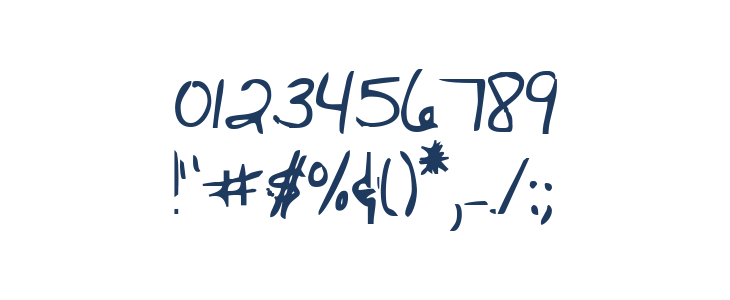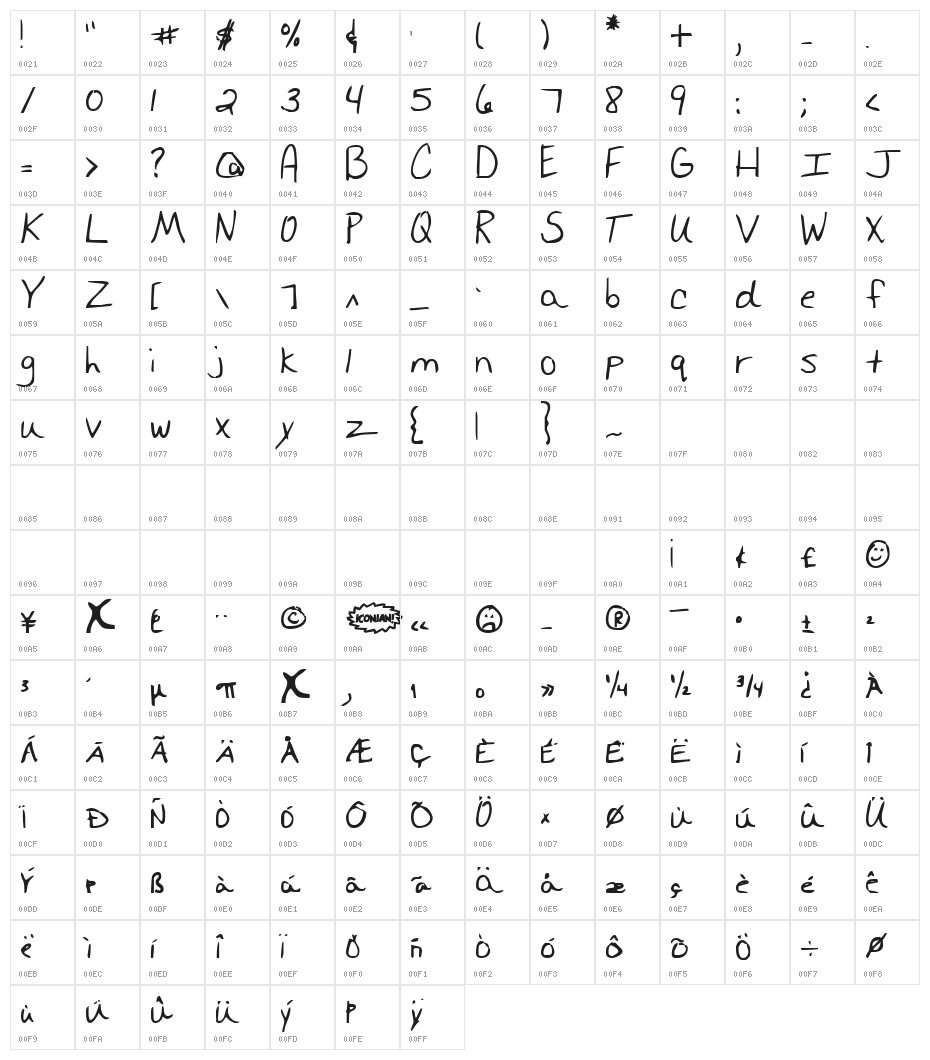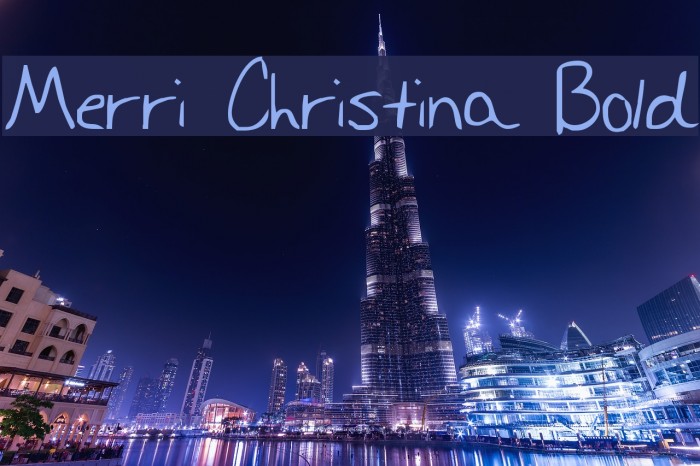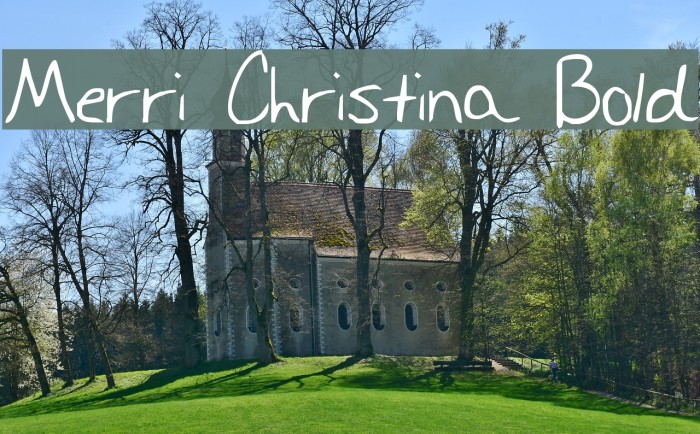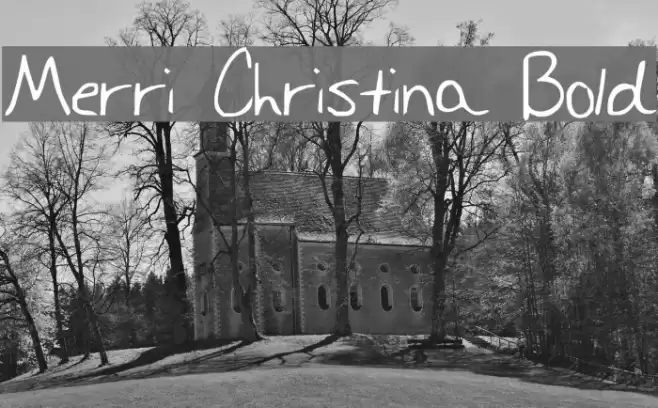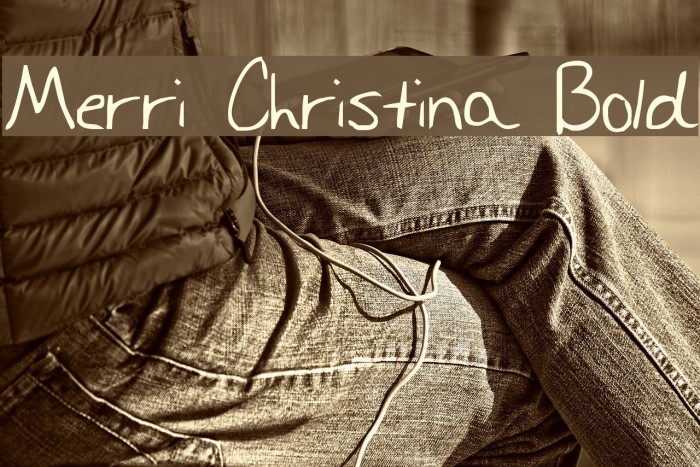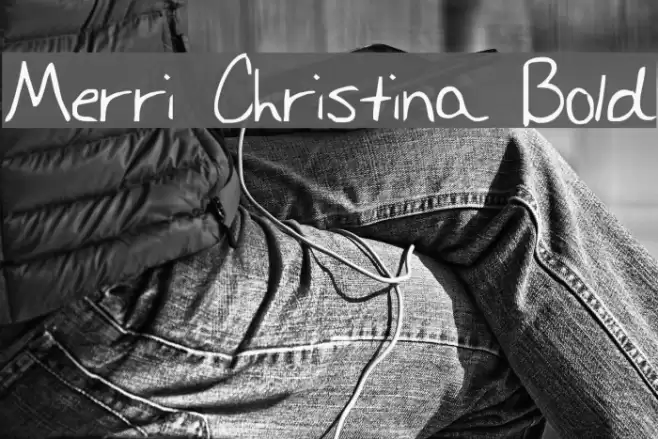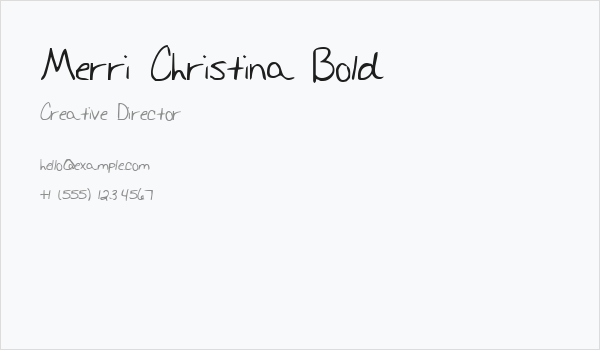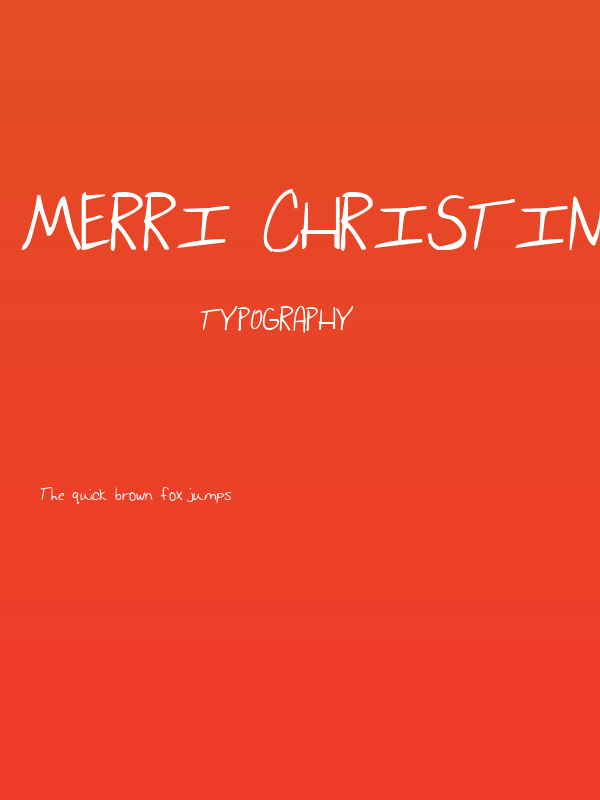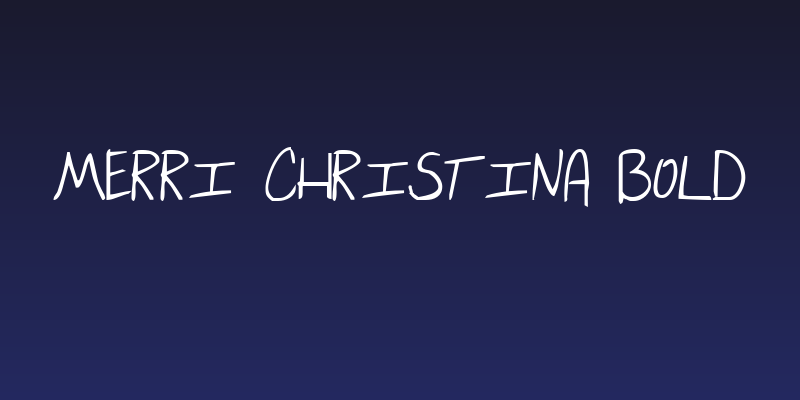
Merri Christina Bold Font
Merri Christina Bold Description
This font features a playful and casual handwritten style, characterized by its irregular strokes and dynamic flow. The letters are slightly slanted, giving it an informal and friendly appearance. The uppercase and lowercase letters are distinct, with the uppercase being more pronounced and the lowercase maintaining a consistent, flowing script. The numerals are bold and easily readable, matching the overall style of the alphabet. Special characters are creatively integrated, maintaining the font's whimsical nature. This font is ideal for projects that require a personal touch or a relaxed, approachable aesthetic.